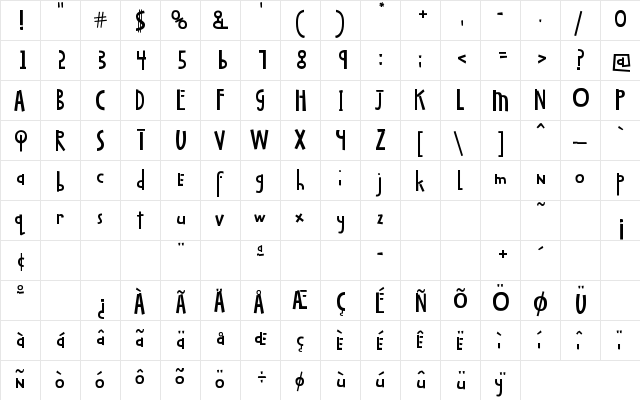
Qbox Regular
Design Context for Qbox Typeface
Qbox is a composed and adaptable typeface that performs quietly and consistently across a wide range of design contexts.